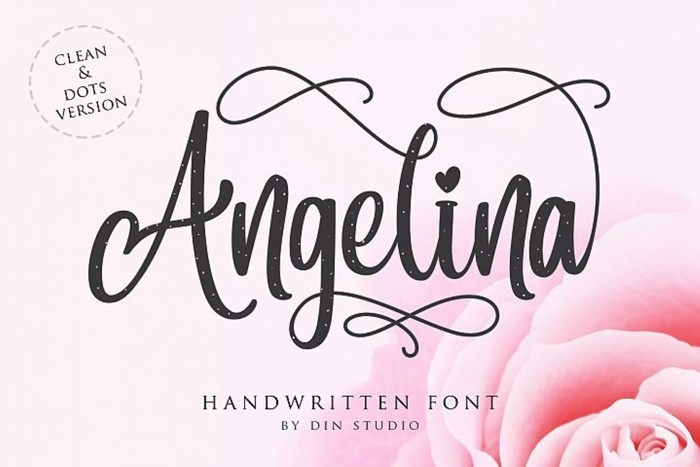
Angelina Font
Product Description :
Angelina Script is a stunning handwritten font created by Din Studio. With a natural and modern style, this font is suitable for your project designs. Angelina was created to help you make a typeface as if it were real handwriting. Angelina font comes with a perfect line and is perfectly used for various purposes, like weddings, branding, logotypes, quotes, and more.
Features includes:
• Beautiful Ligatures
• Multilingual Supports
• Numerals and Punctuations
• Stylistic Alternates (b, d, f, g, h, i, j, k, l, t, y, z)
• Lovely Swashes (a-z)
Product Description :
Introducing Angelina Script.
a beautiful handwritten font with a natural and modern style for your project design. This font is best used for weddings, branding, logotype, and quotes.
Features:
•Beautiful Ligatures
•Multilingual Support
•Numerals and Punctuation
•Stylistic Alternates (b, d, f, g, h, i, j, k, l, t, y, z)
•Lovely Swash (a-z)